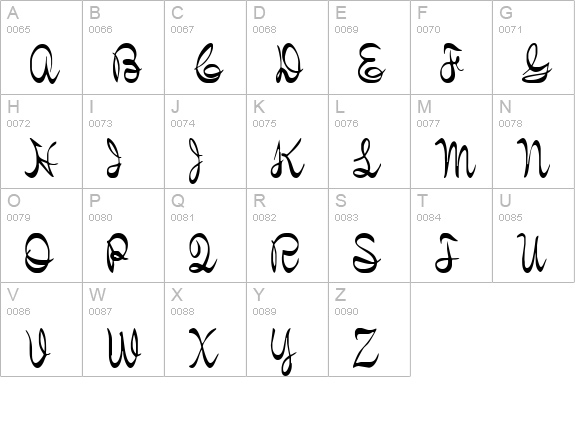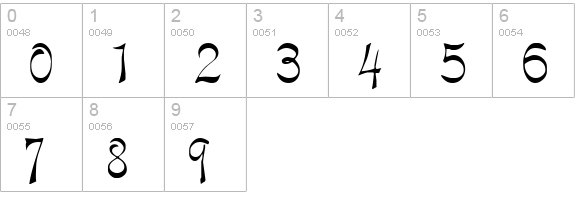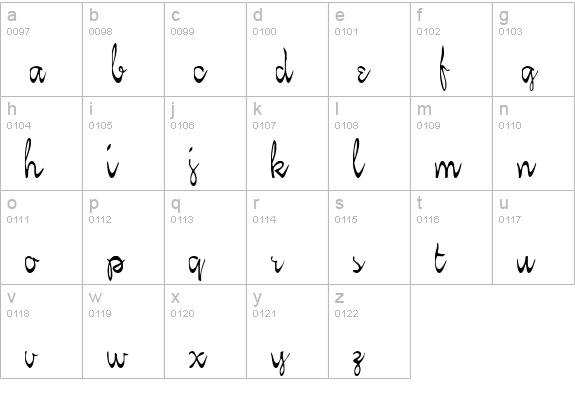
Kelly Brown Font Details
Introducing Kelly Brown font, a stunning display typeface that will add a touch of elegance and sophistication to your designs. This unique font features a perfect balance between modernity and classic charm, making it ideal for a wide range of projects. Kelly Brown font is meticulously crafted with attention to every detail, resulting in clean and crisp letterforms that are easy on the eyes. Its smooth curves and well-defined shapes give it a sleek and polished look, making it perfect for headlines, logos, branding, and more. But what sets Kelly Brown font apart is not just its exceptional design, but also the fact that it is free! That's right, this remarkable font is freely available to download at FontsMarket.com. Whether you're a professional designer or an amateur enthusiast, Kelly Brown font gives you the opportunity to elevate your work without breaking the bank. With its wide range of glyphs and alternate characters, Kelly Brown font offers endless possibilities for creativity. Experiment with different styles and combinations to create unique and eye-catching designs that will captivate your audience. Whether you're working on a fashion project, an editorial layout, or a wedding invitation, Kelly Brown font will effortlessly elevate your design to new heights. Its versatility and timeless appeal make it a must-have addition to any designer's toolkit. So why wait? Head over to FontsMarket.com and download Kelly Brown font today. Let your creativity soar and make a lasting impression with this exceptional typeface that combines beauty, elegance, and the best of all – it's free!